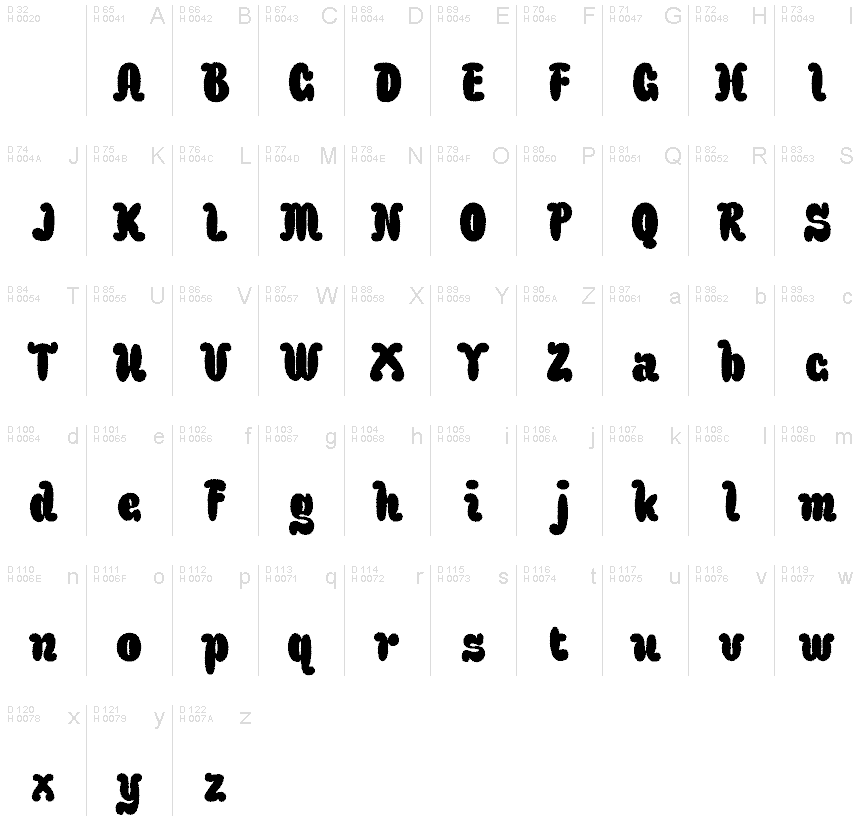
Wegas Vintage Demo Rough
Wegas Vintage Rough font by Craft Supply Co is a charming, bold display type ideal for instantly establishing a nostalgic, whimsical vintage appeal. A rough version of the original free display font version; this specific design features ornate decorative elements that are instantly noticeable and that set it apart from other retro options in the category.
Use this font in typography designs for businesses with a historic background or those planning anniversary celebrations; it works well for restaurant menus, bars, bodegas, and cafe signs. Other uses include print ads and posters (newspapers), flyers, digital ads (social media), book covers, typography logos, package labels (bottles), stickers/labels for food items.